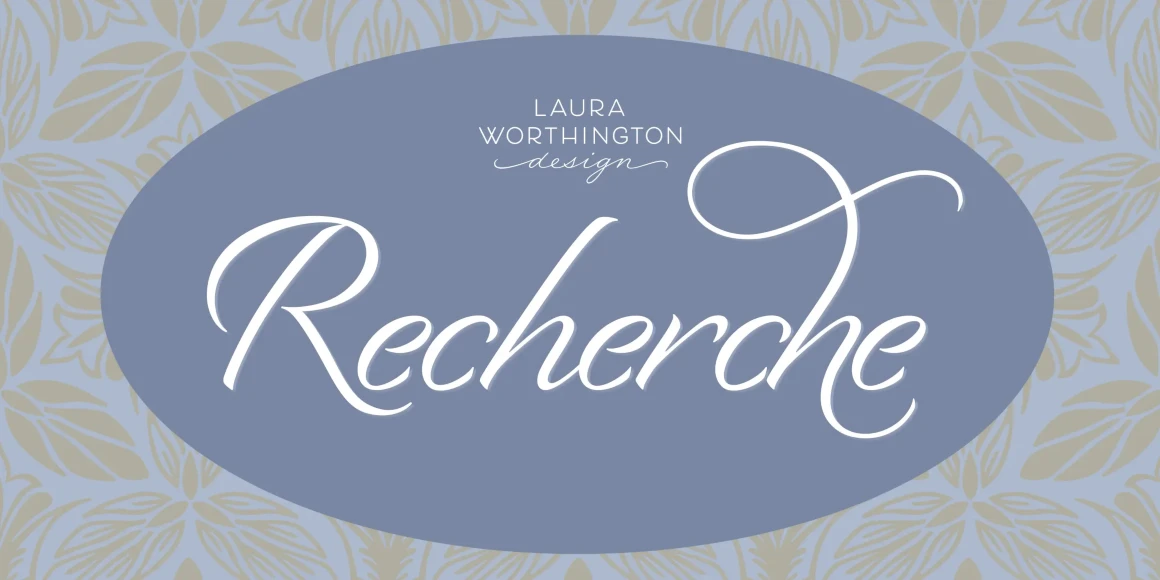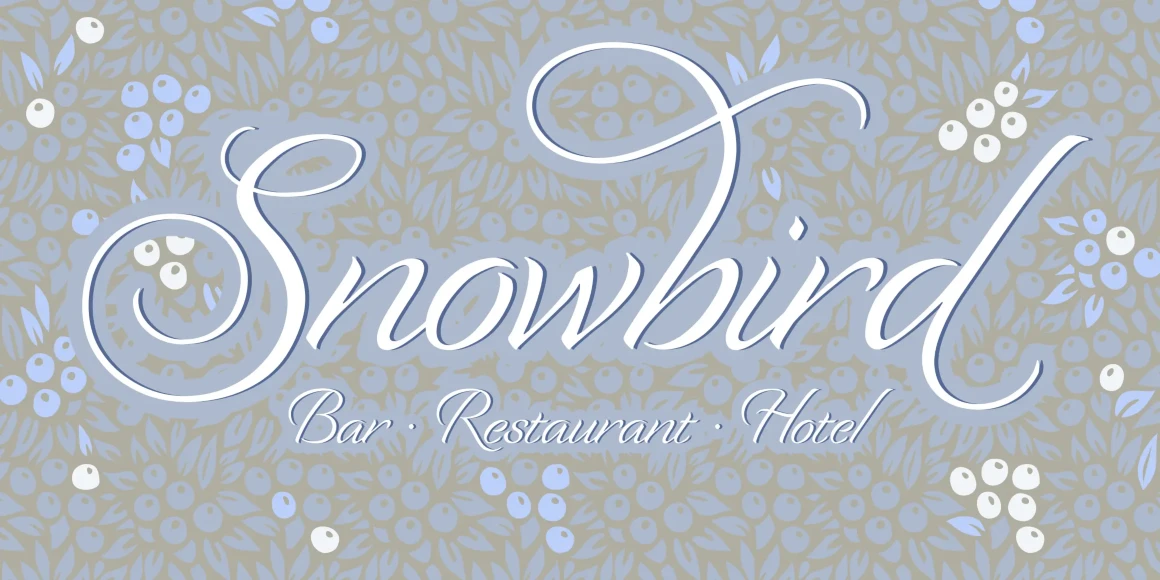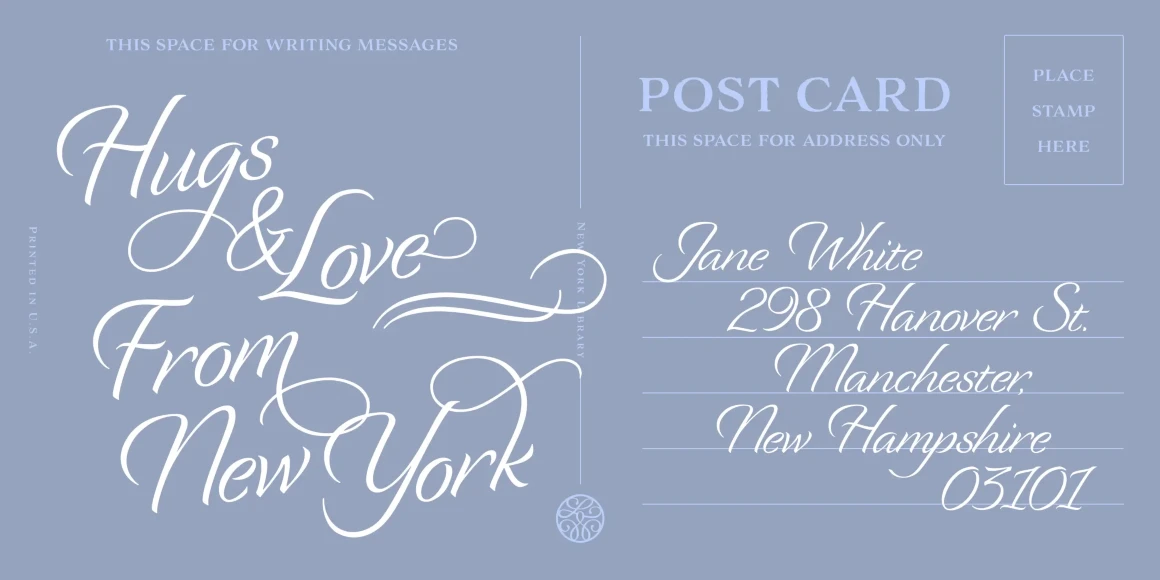
Recherche Font
Recherche
Recherche means “studied refinement or elegance” and suits this typeface perfectly. Based on italic, calligraphic letterforms, its long, arking verticals and oval counters convey airy sophistication. Recherche is packed with swashy alternates, making it easy to create unique settings and wordmarks for menus, wine labels, wedding invitations, and more. It includes a full set of swash capital letters and 89 lowercase swashes.
OpenType Features
• Stylistic Alternates
• Stylistic Sets
• Swashes